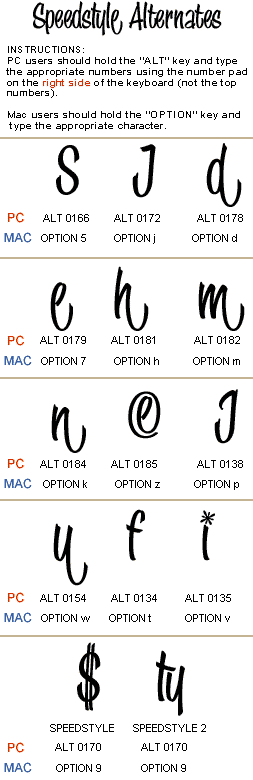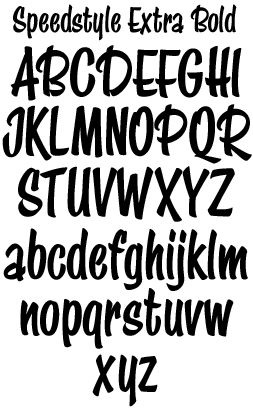
LHF Speedstyle At one time it was required that all (UK)
commercial vehicles should display the operators name, unladen weight
and contact details, in small lettering, low down on the nearside.
Generally known as legal writing, the lettering was usually condensed,
to fit on a mudguard or cramped quarter panel, and quick to write,
to keep down expenses. My first efforts were rather stiff 'matchstick'
letterforms but later developed a bit of 'swing'. Much later I needed
something lively and casual for children's names on a glass-painting
project, and with further modifications and some refinements in
the style of the great Cecil Wade, this semi-script was developed.